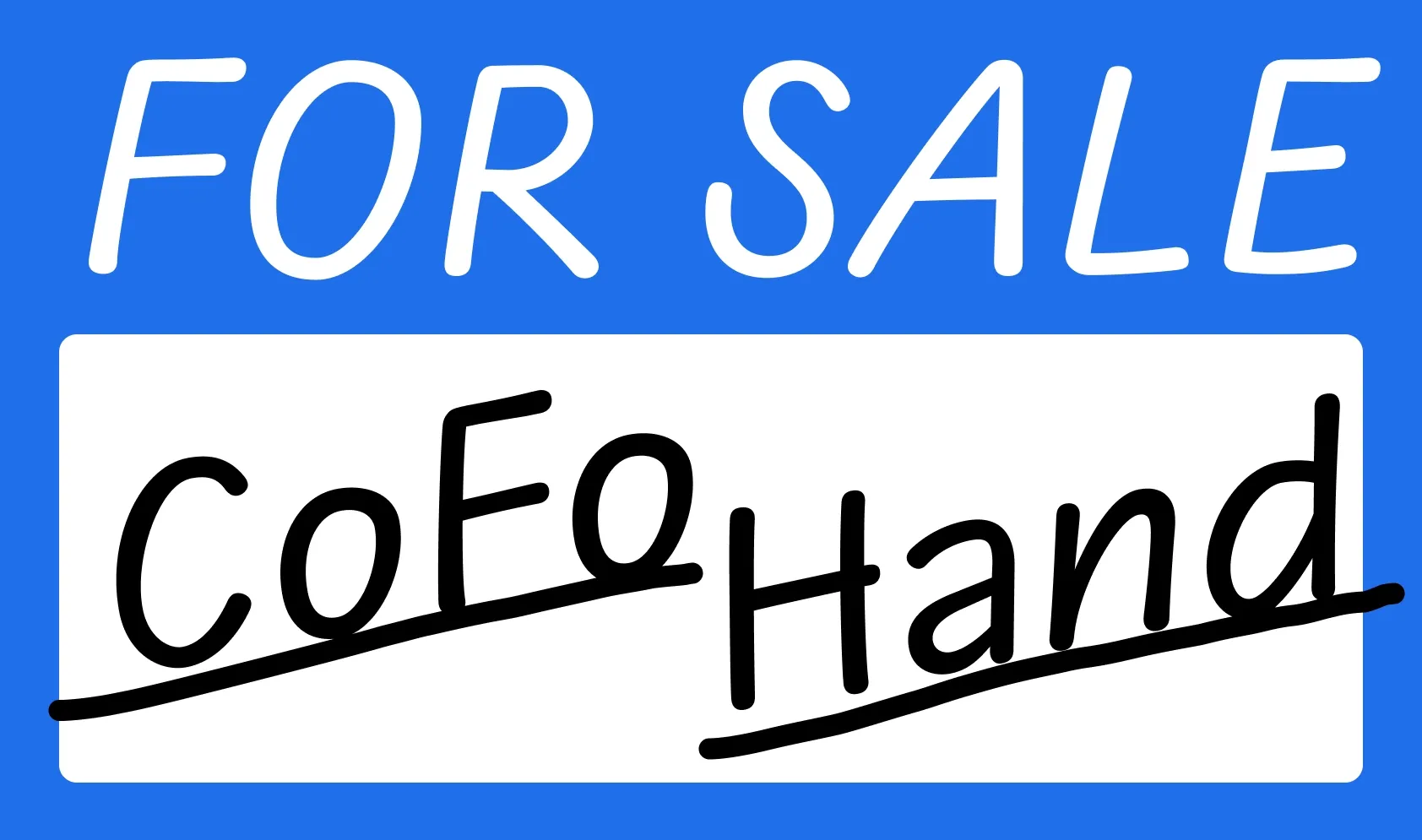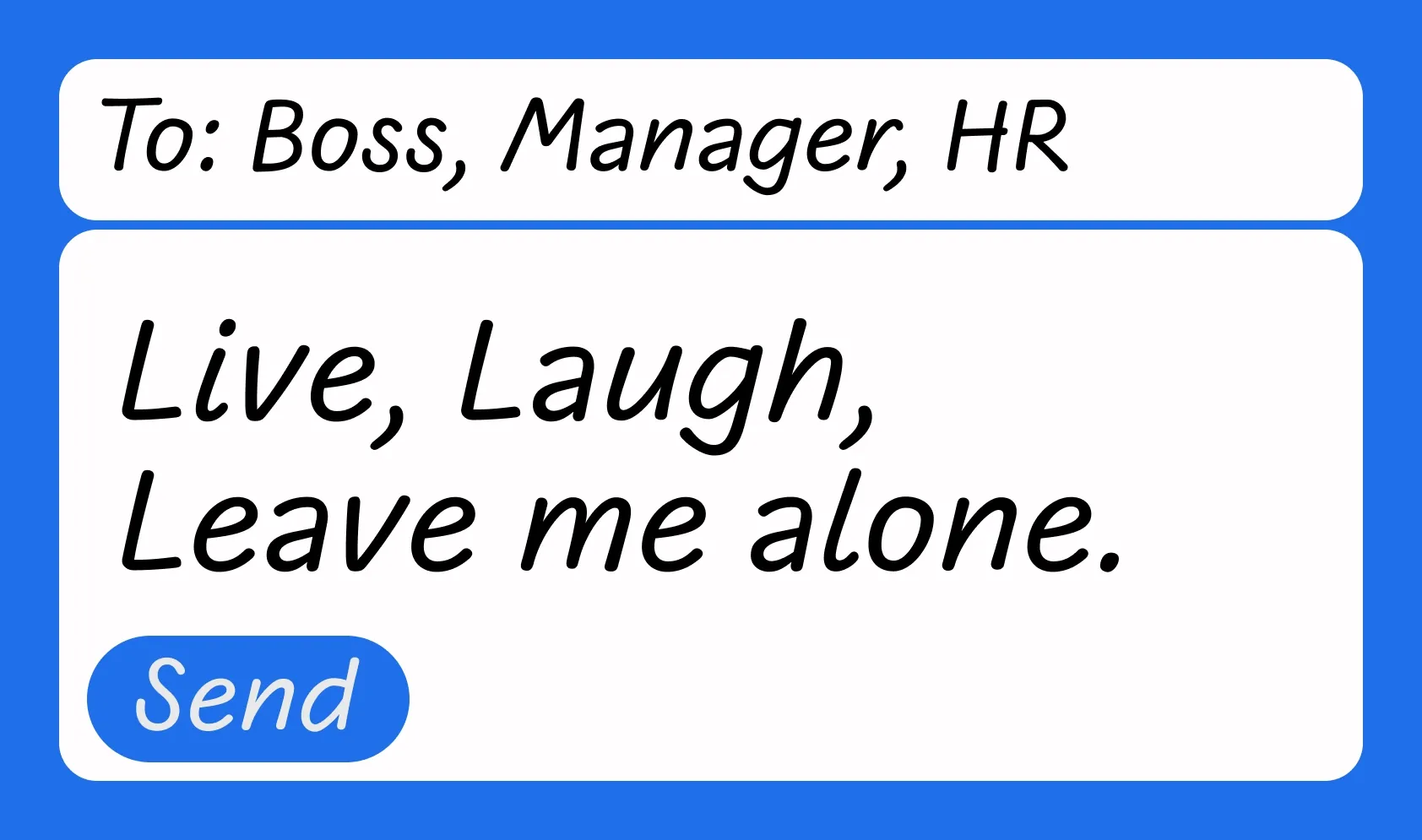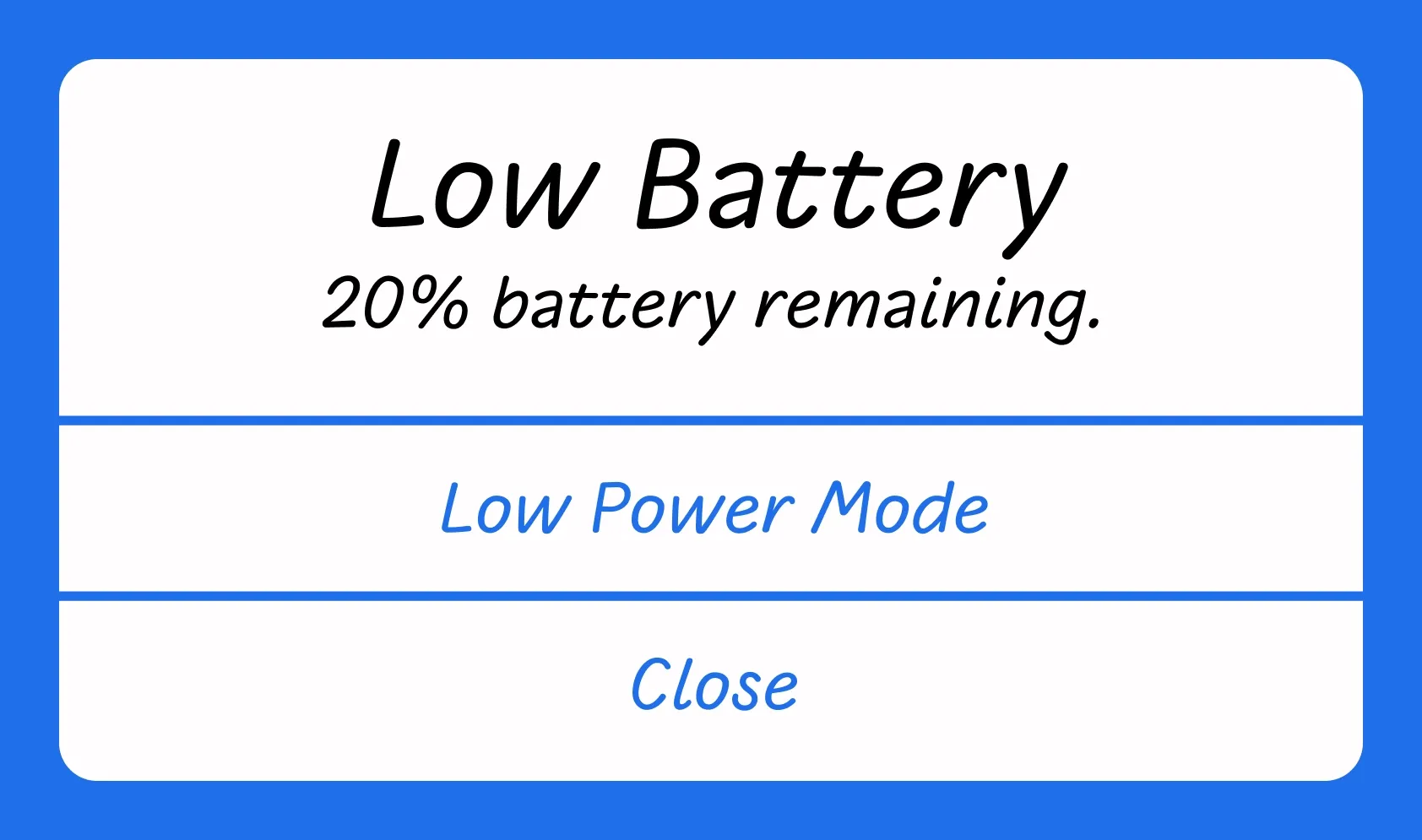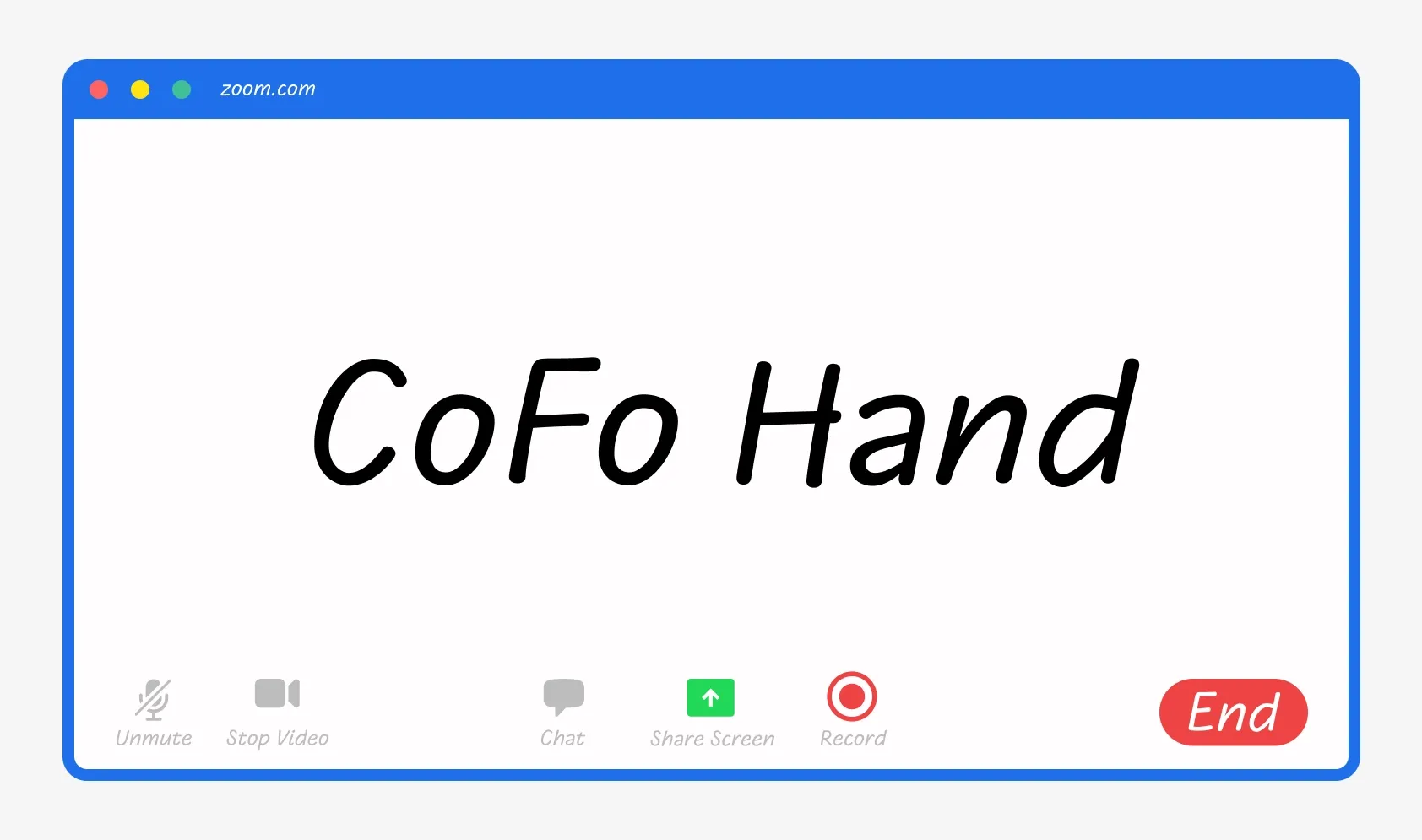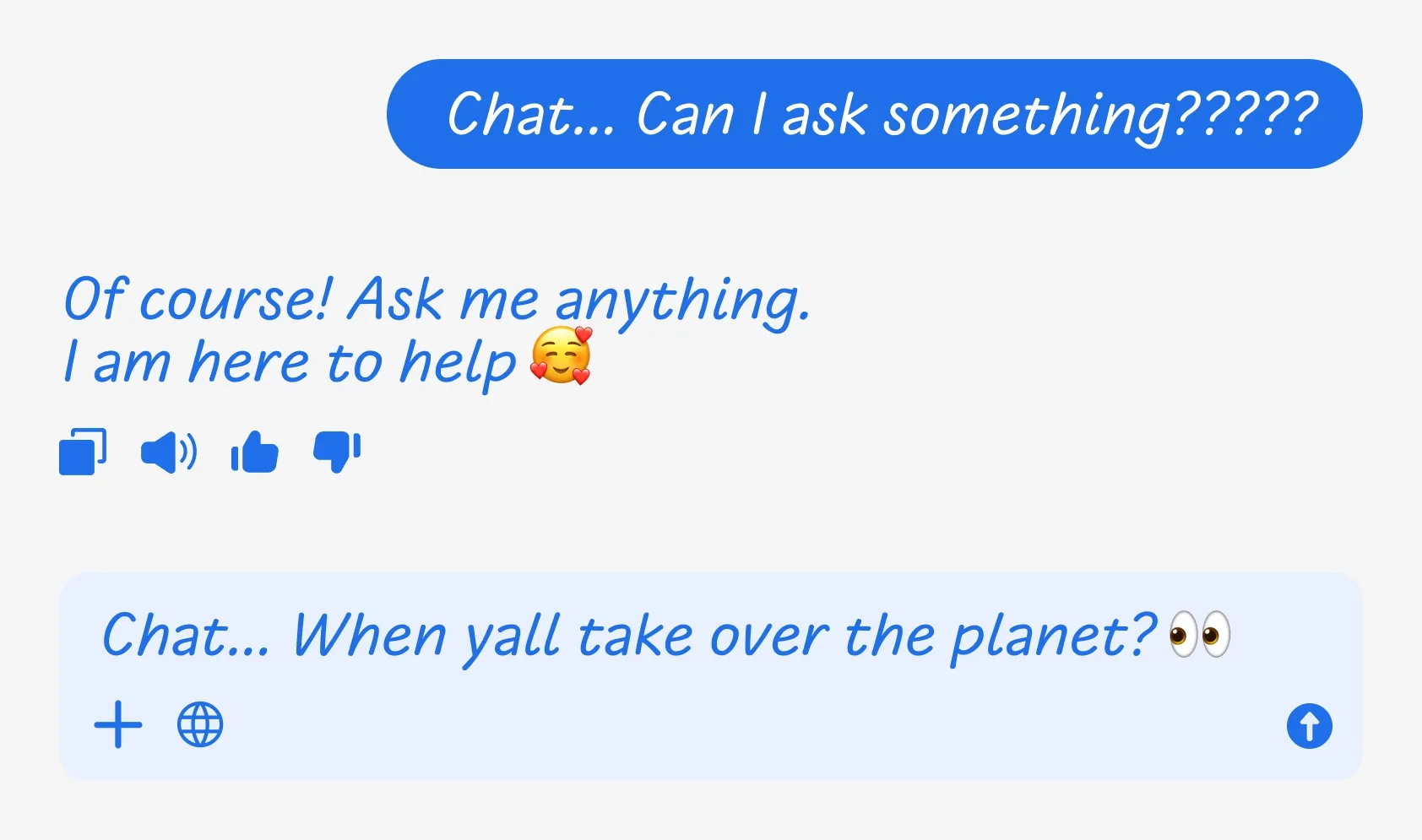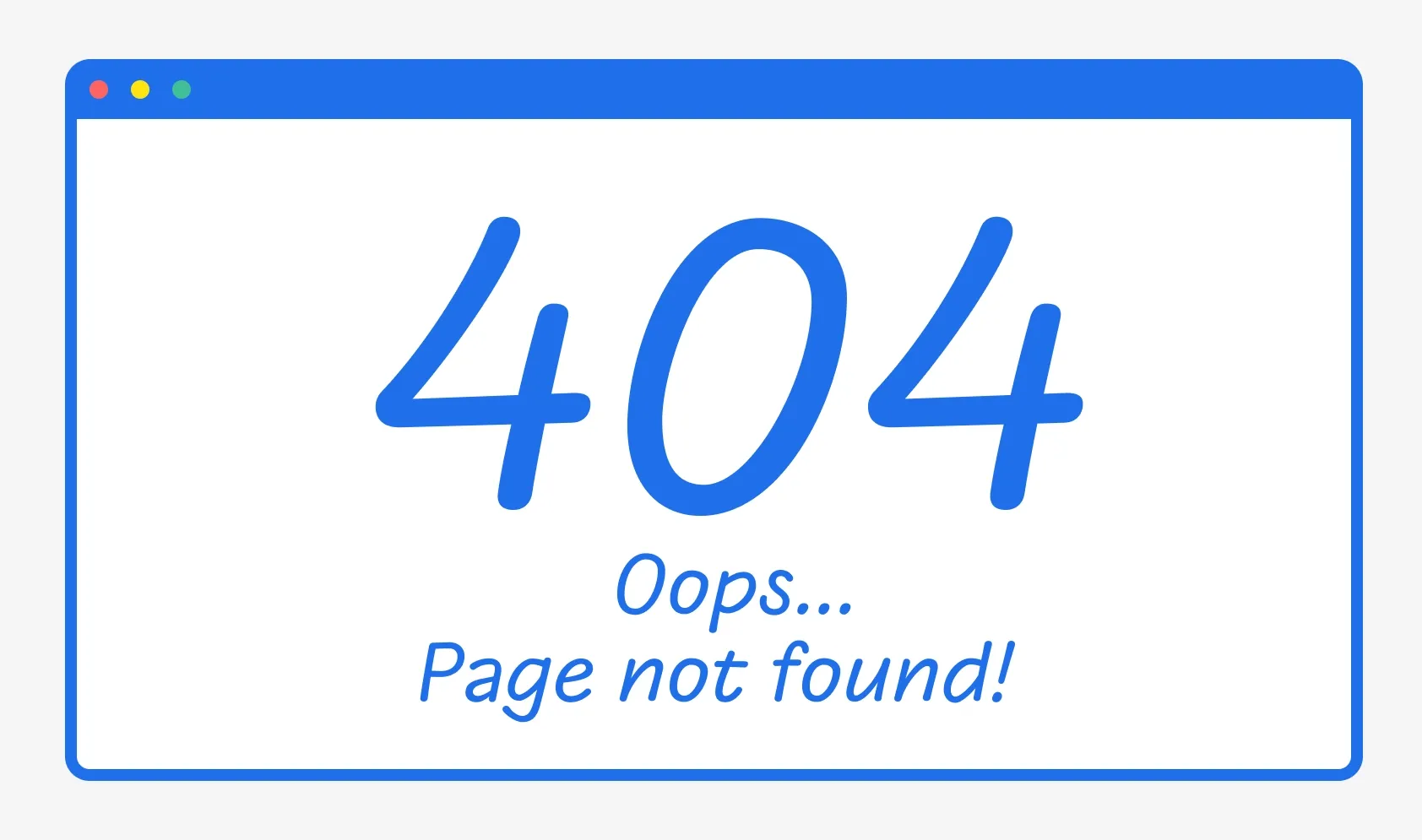
CoFo Hand
About CoFo Hand
CoFo Hand is a friendly script typeface with the essence of lively handwriting. It’s not your child’s playful scribble or a fancy script for wedding invitations; it’s the casual note-on-the-fridge kind, the one you use to make a grocery list and jot down a few words on an empty piece of paper during a phone conversation.
The letters in CoFo Hand are not interconnected, which makes this typeface so easy to use in any context. It reads well even in the smallest sizes, allowing combinations with other typefaces to add life and energy into any project.